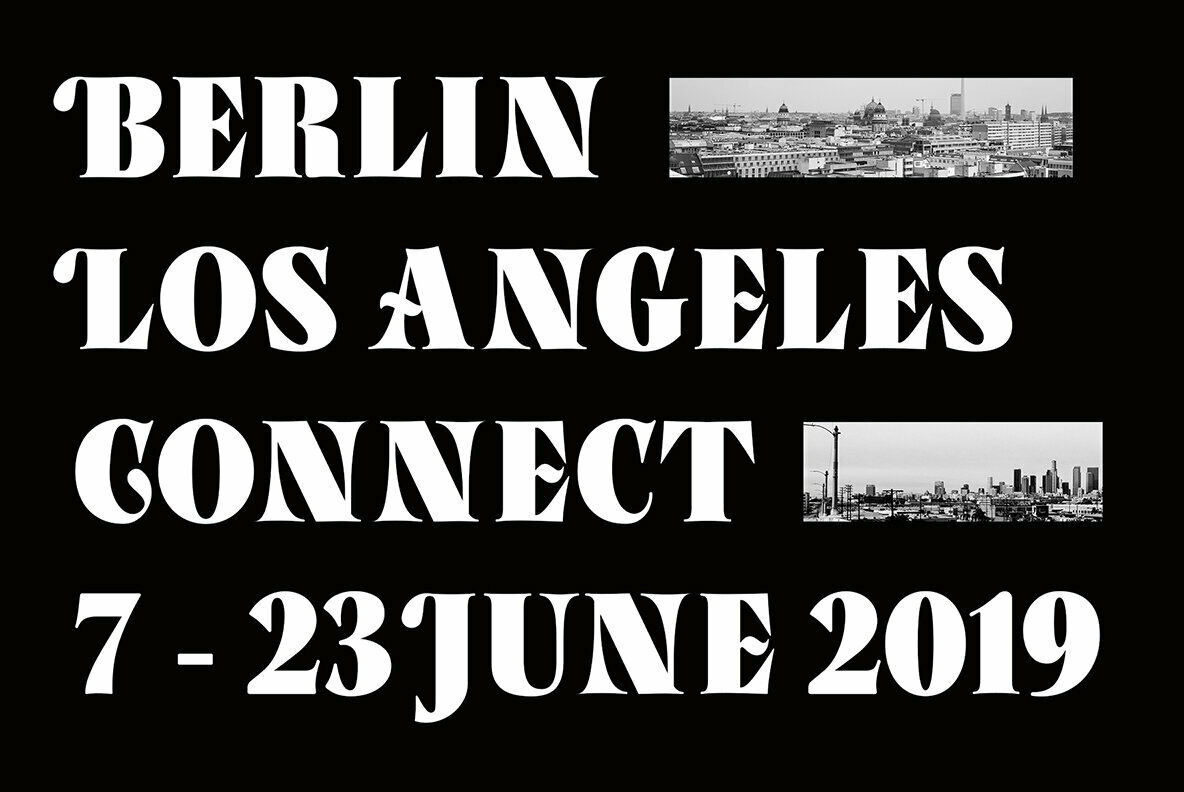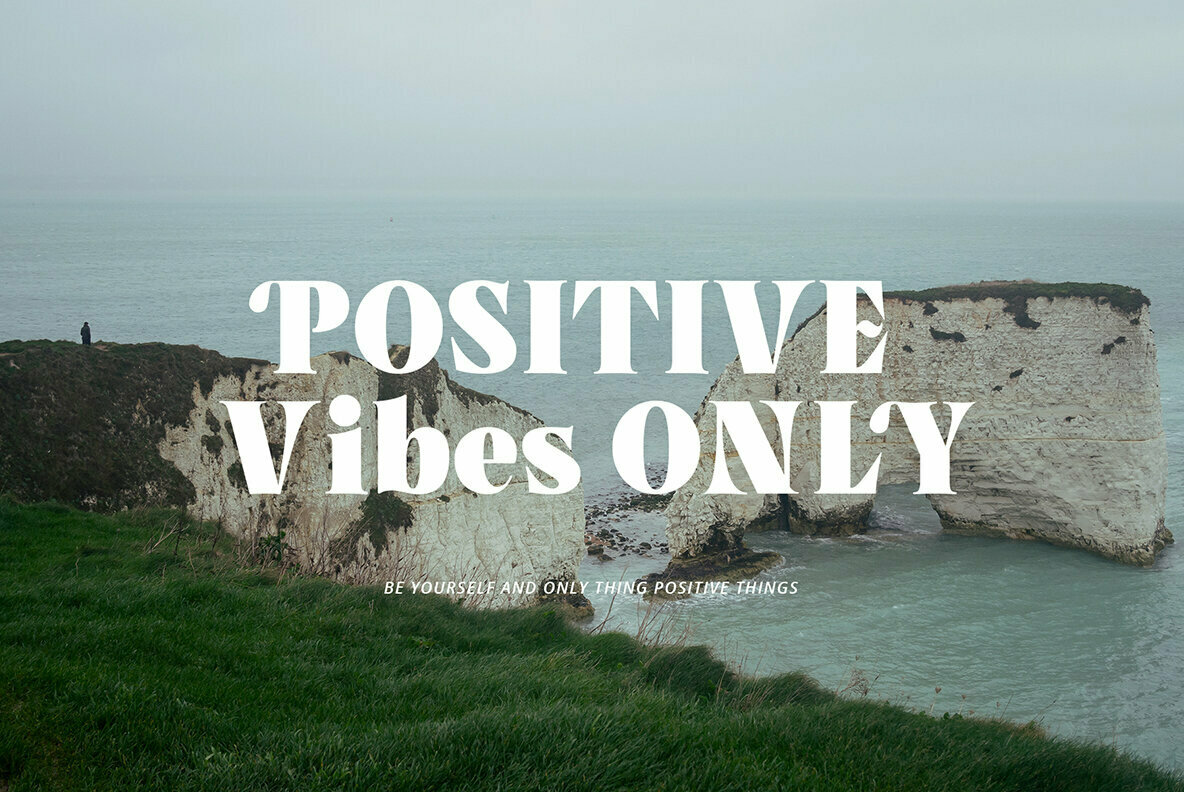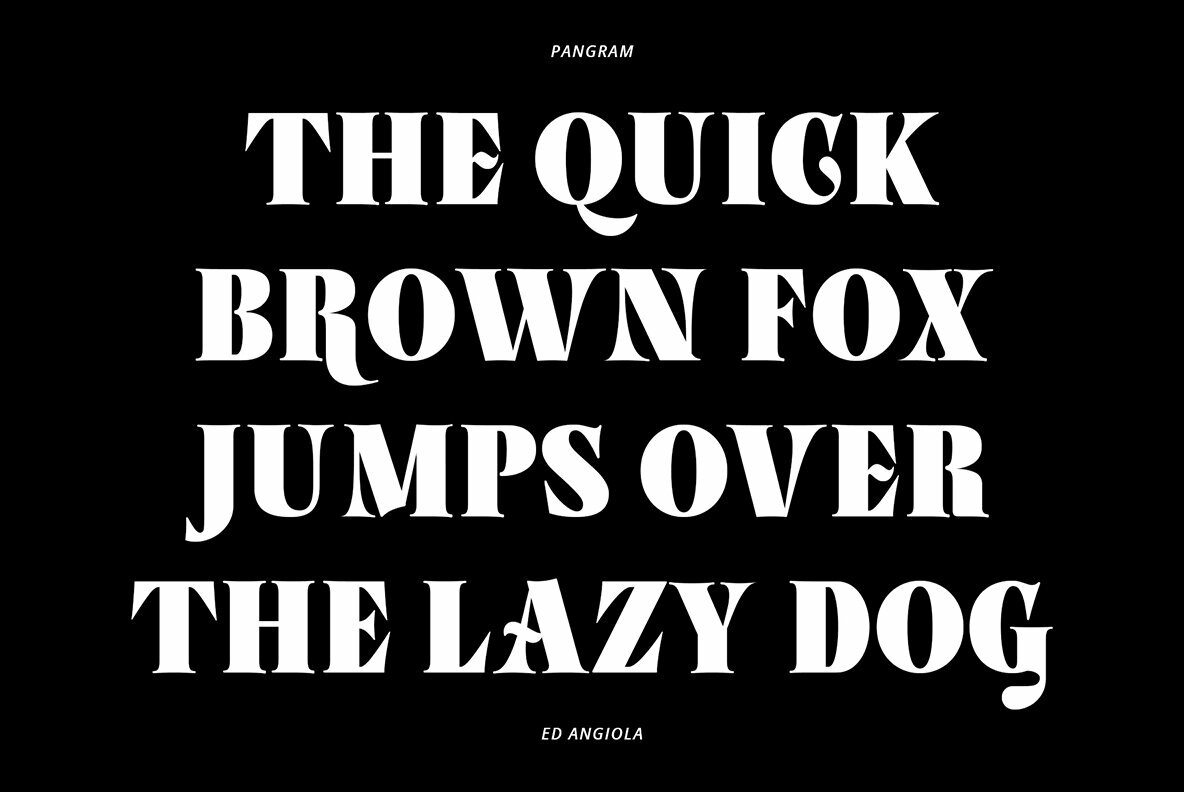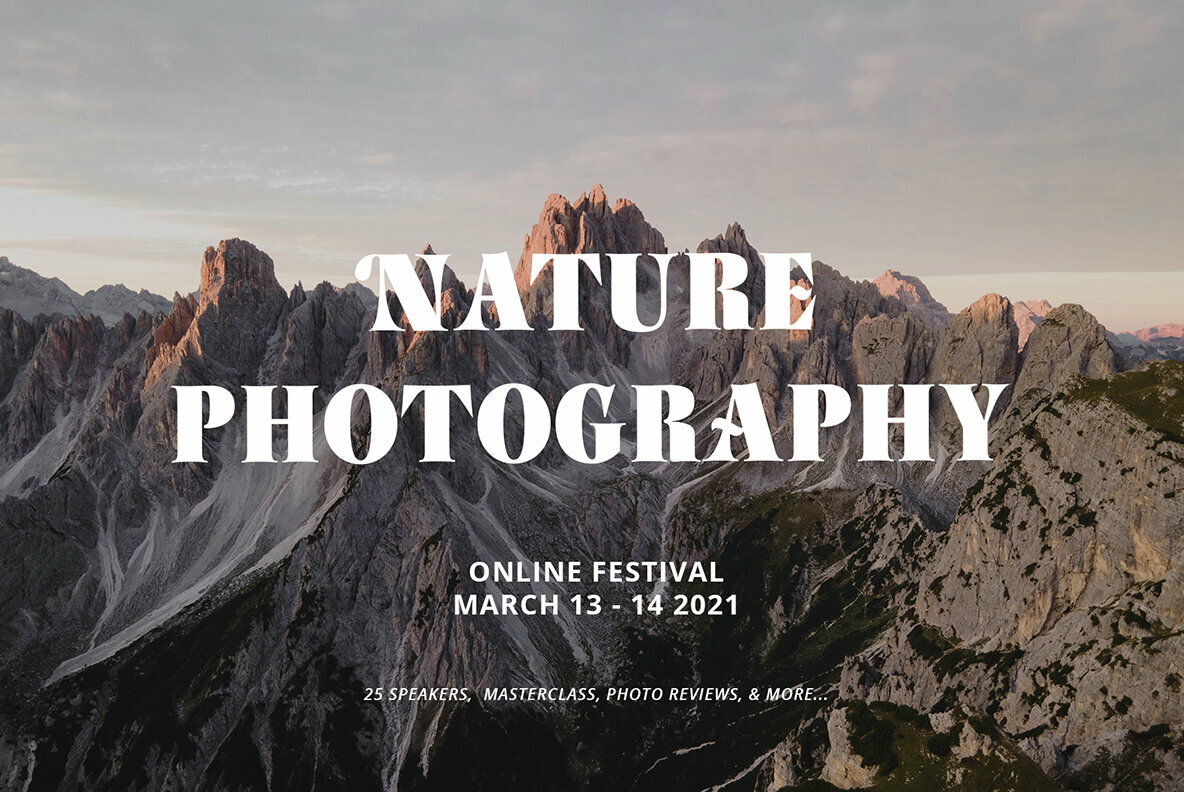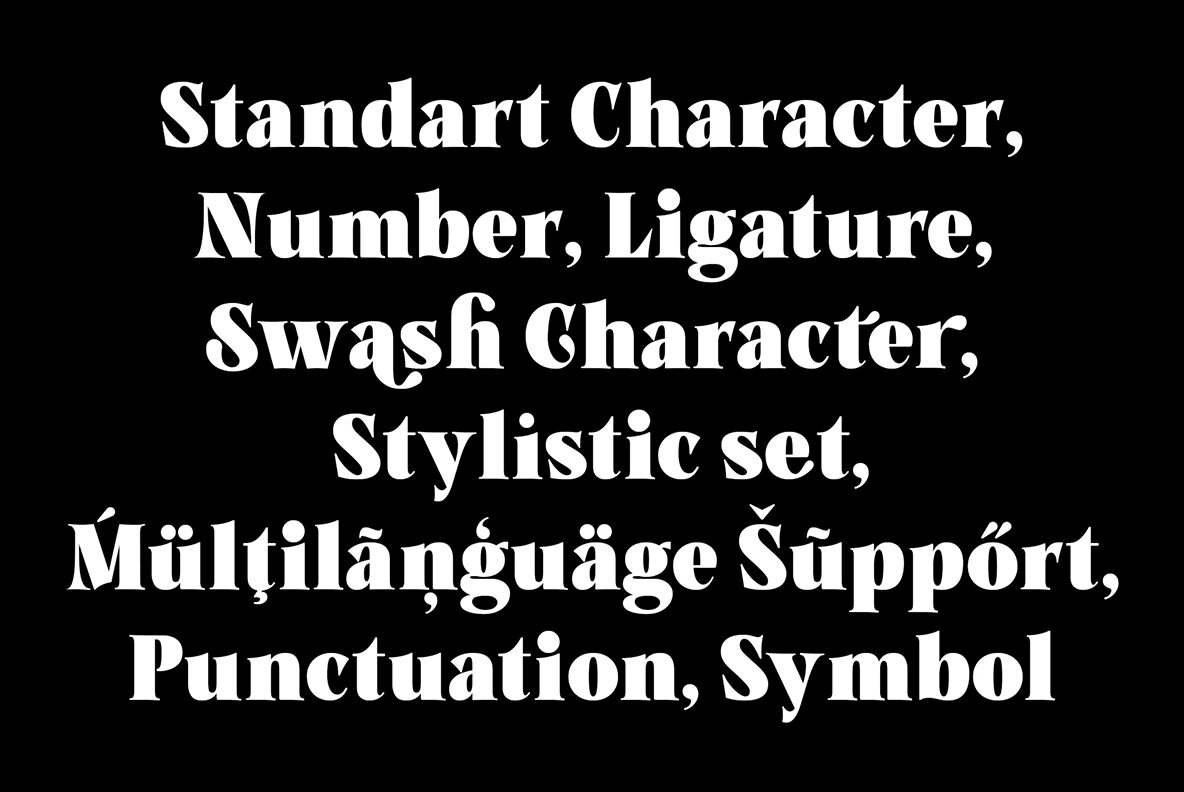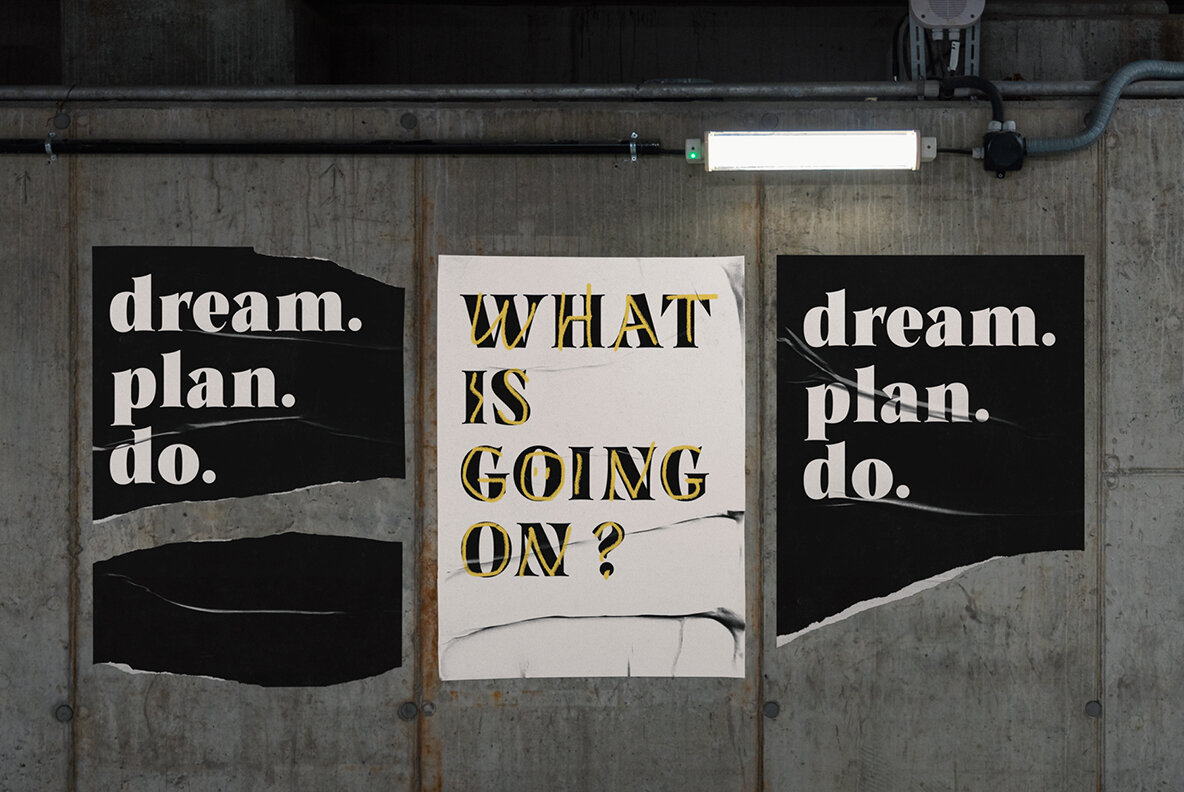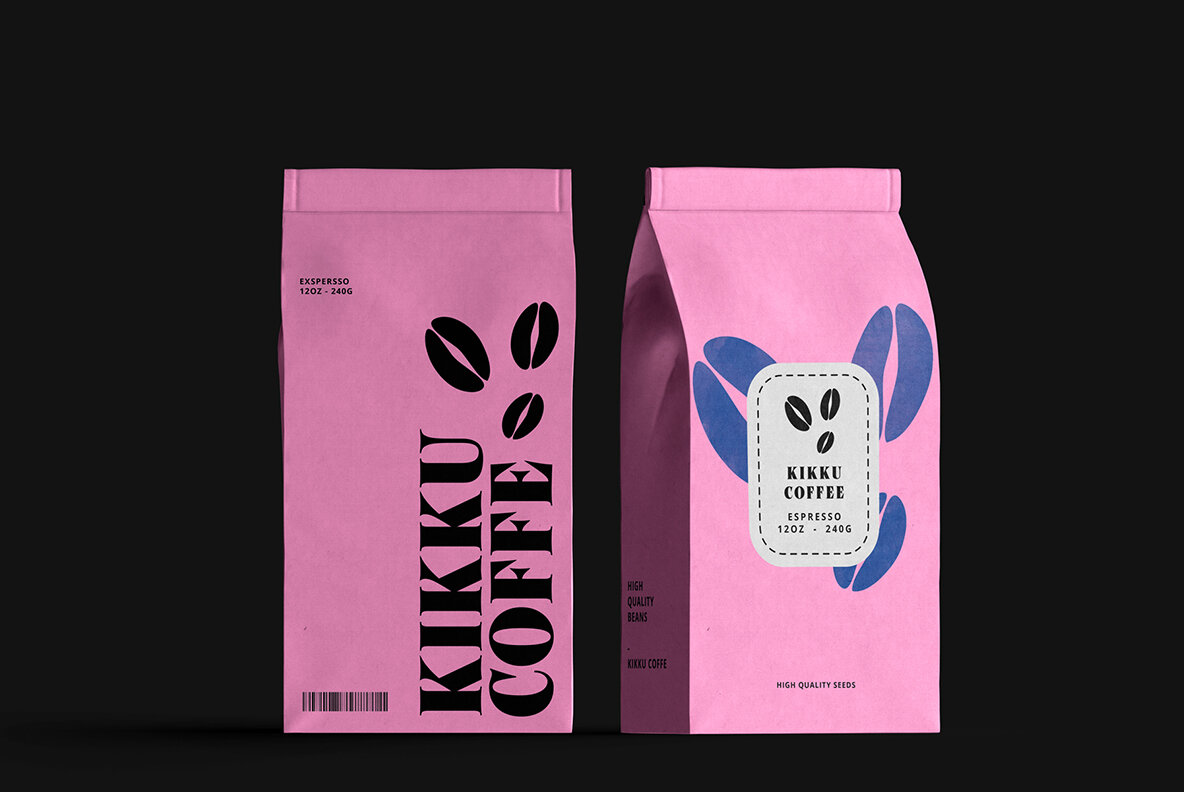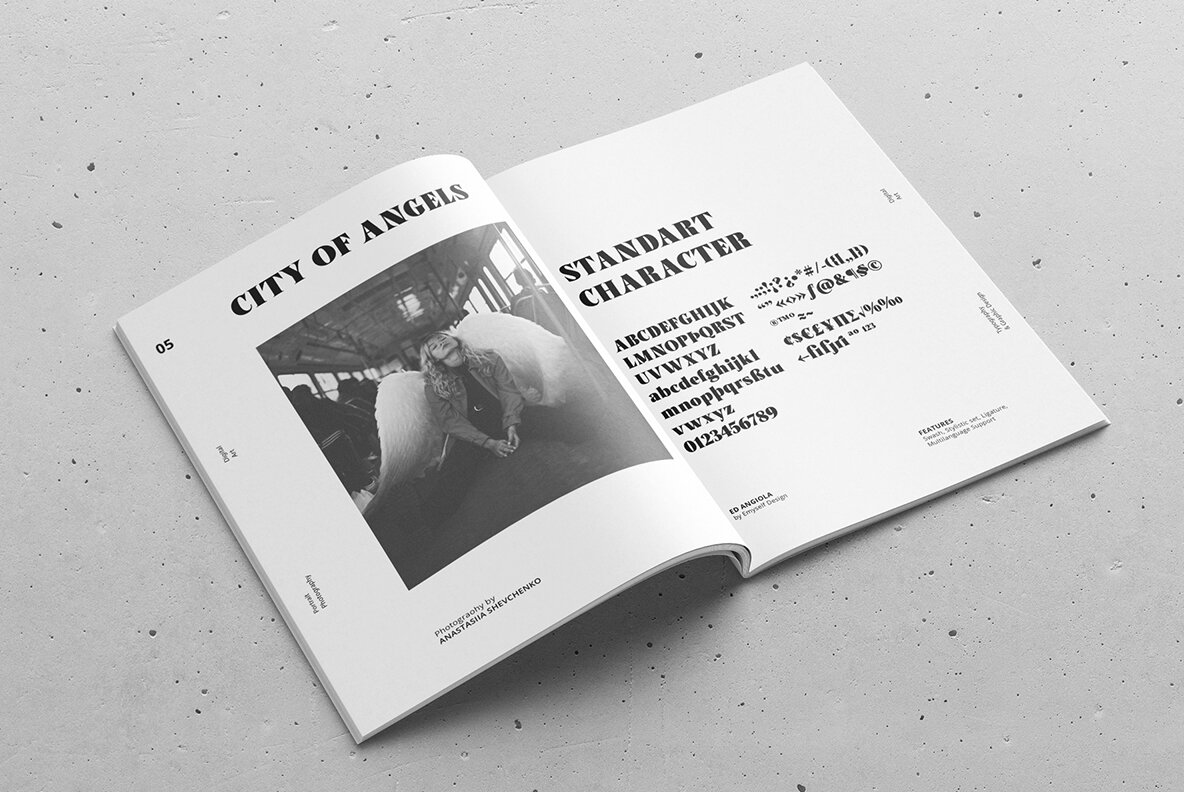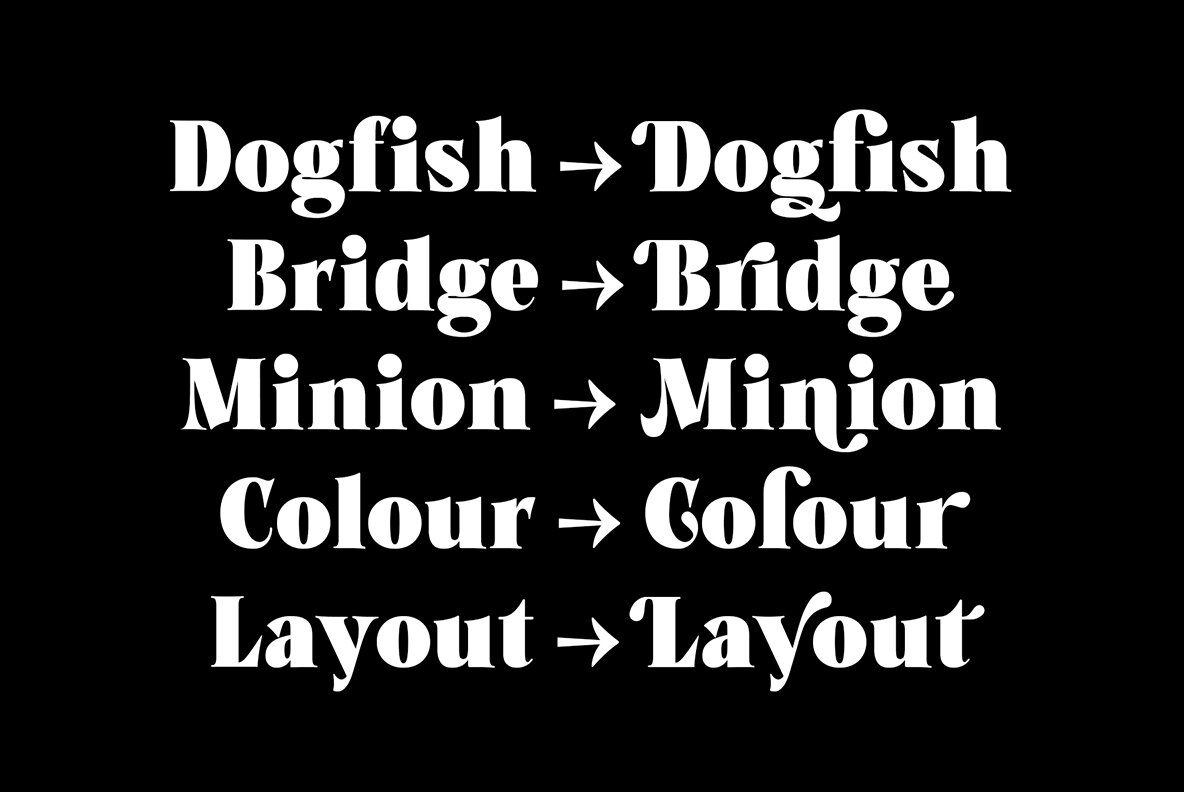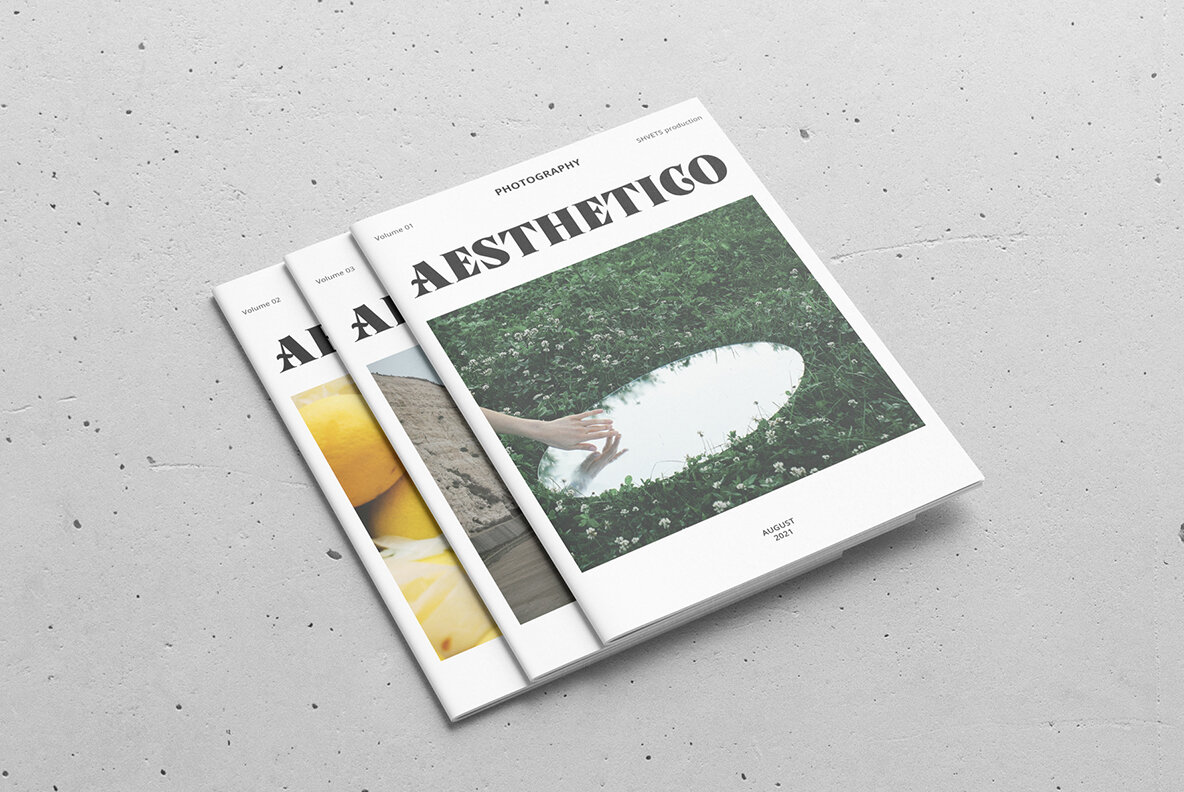
ED Angiola Font
ED Angiola Regular
Angiola is a bold serif display font that has a classic and elegant style. Besides that this font is equipped with a swash and a stylistic set which makes this font look unique and more stylish. Angiola also features ligatures and a multilingual environment which further complements this font to use.
This font is perfect for your creative projects such as Logotype, printed quotes, invitations, cards, product packaging, headers, Letterhead, Apparel, Web design, Magazine, Book, etc.